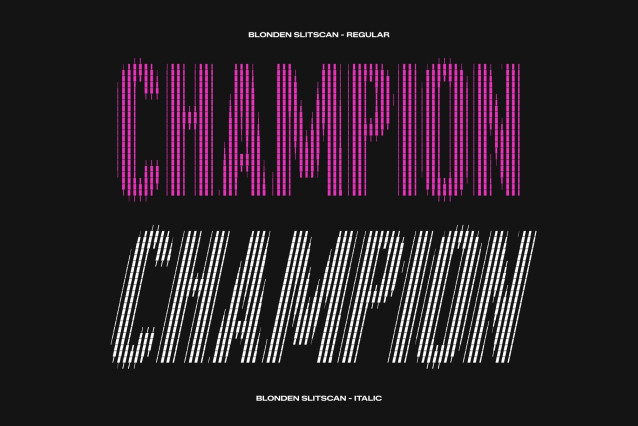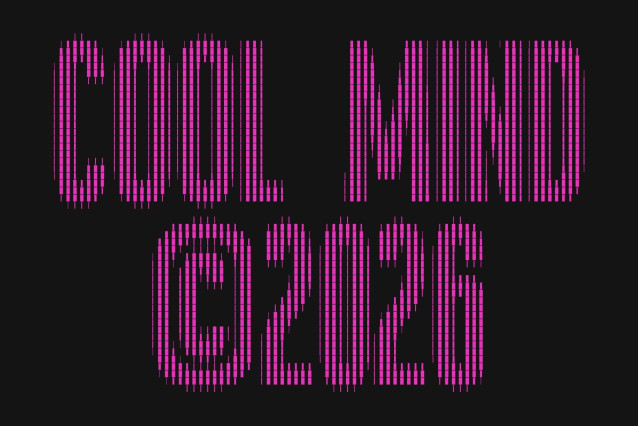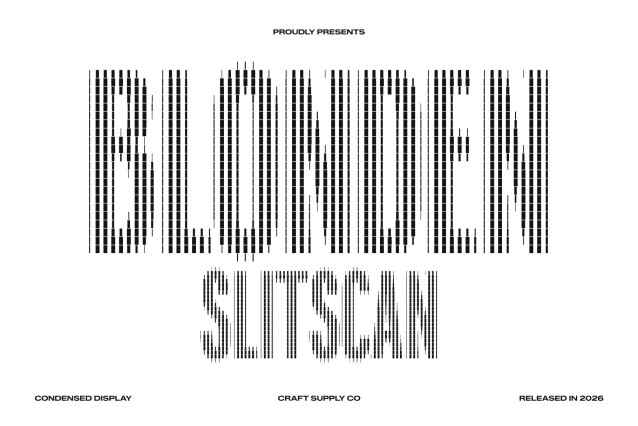
Blonden Slitscan Font
Blonden Slitscan – Condensed Modernity with Dynamic Motion
Streamlined Condensed Sans Serif with Contemporary Edge
This is a condensed sans serif typeface that fuses modern design with efficient, space-saving proportions. Its sleek, compact structure delivers a strong visual rhythm, making it ideal for bold communication in tight layouts without sacrificing style or clarity.
Slitscan Effect: Motion, Rhythm & Digital Distortion
Inspired by the slit-scan visual technique, this font introduces vertical sliced layers that create a sense of movement, energy, and futuristic distortion. The effect enhances its modern identity, giving the typeface a dynamic and expressive digital character.